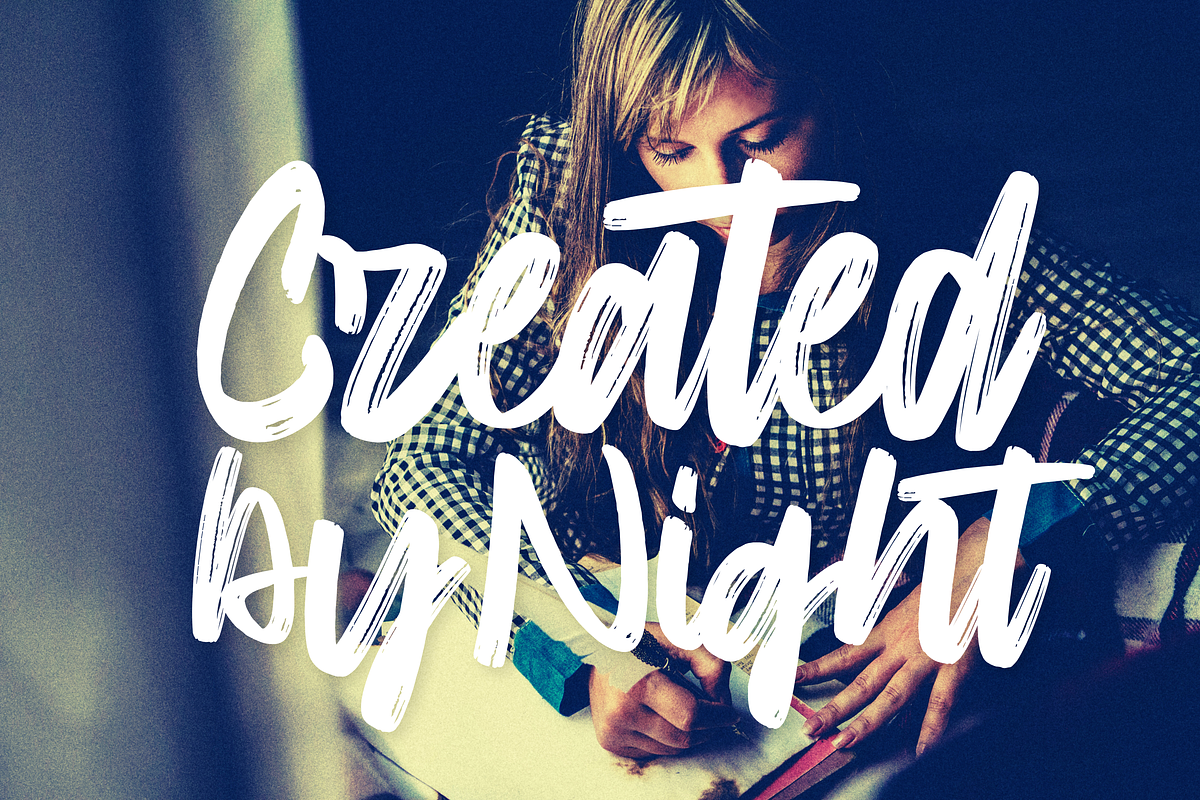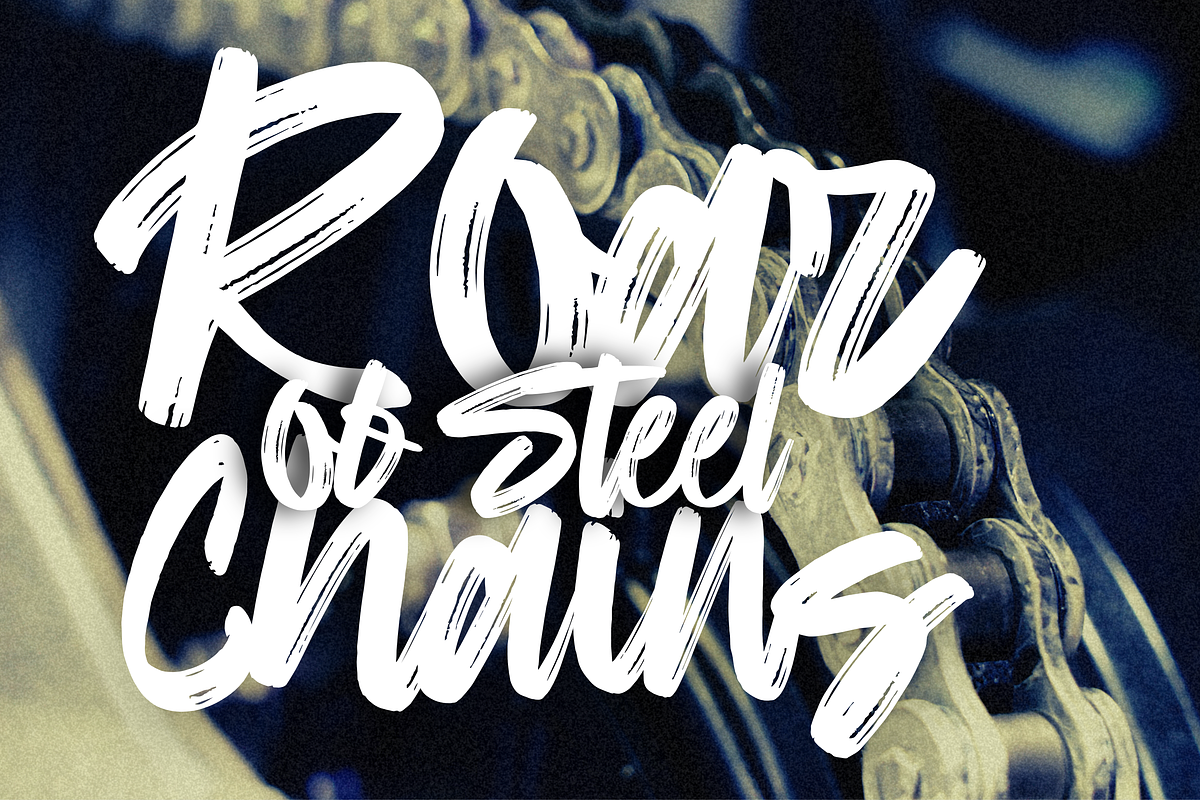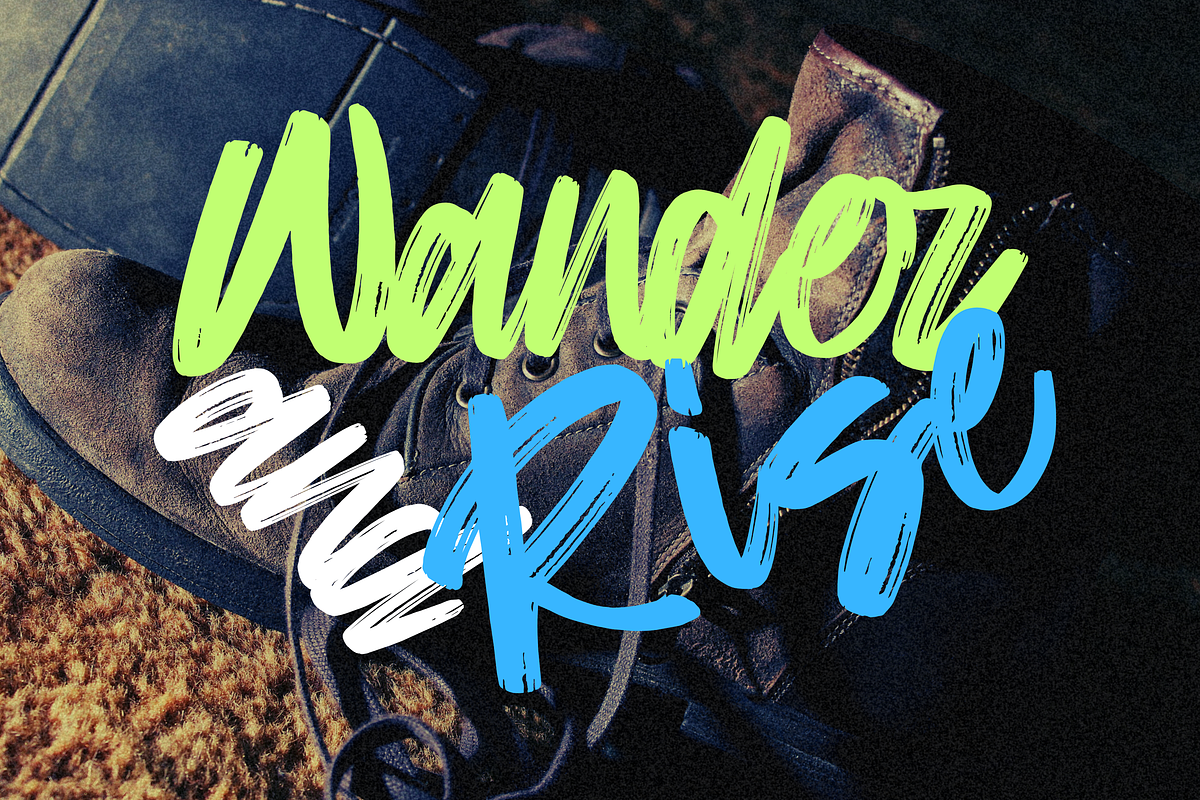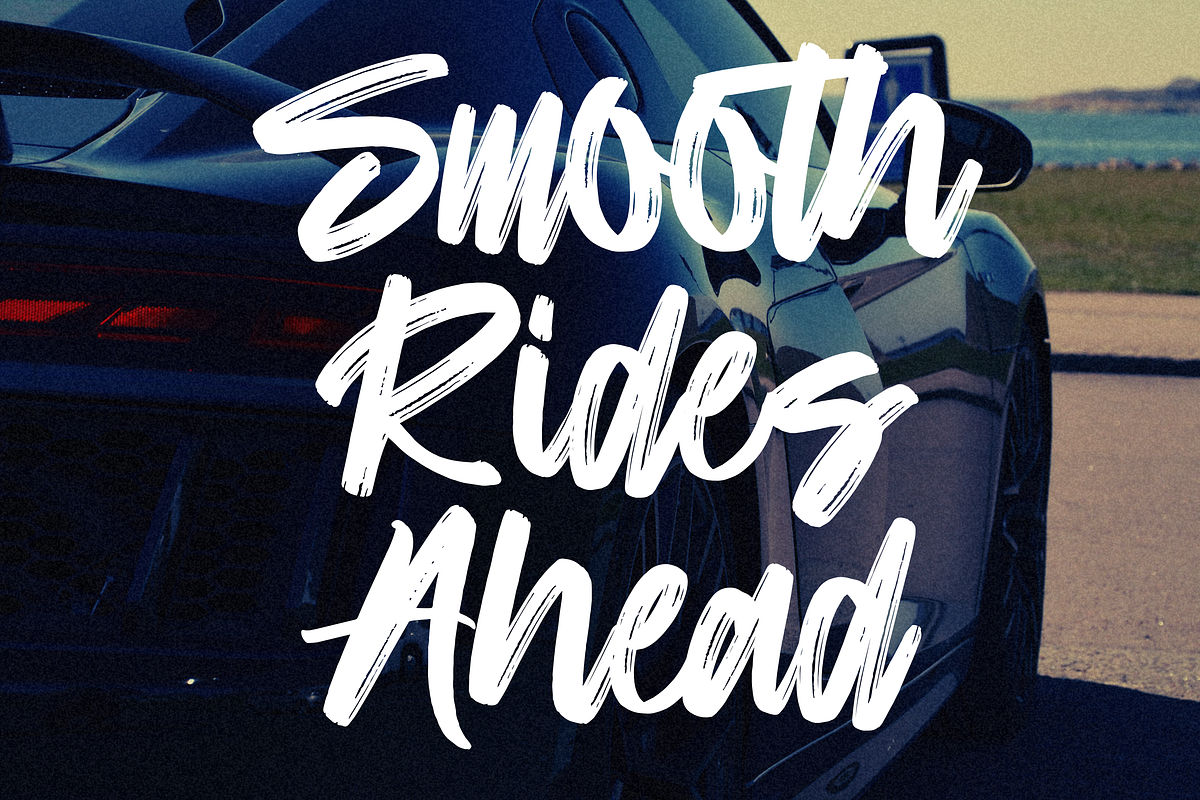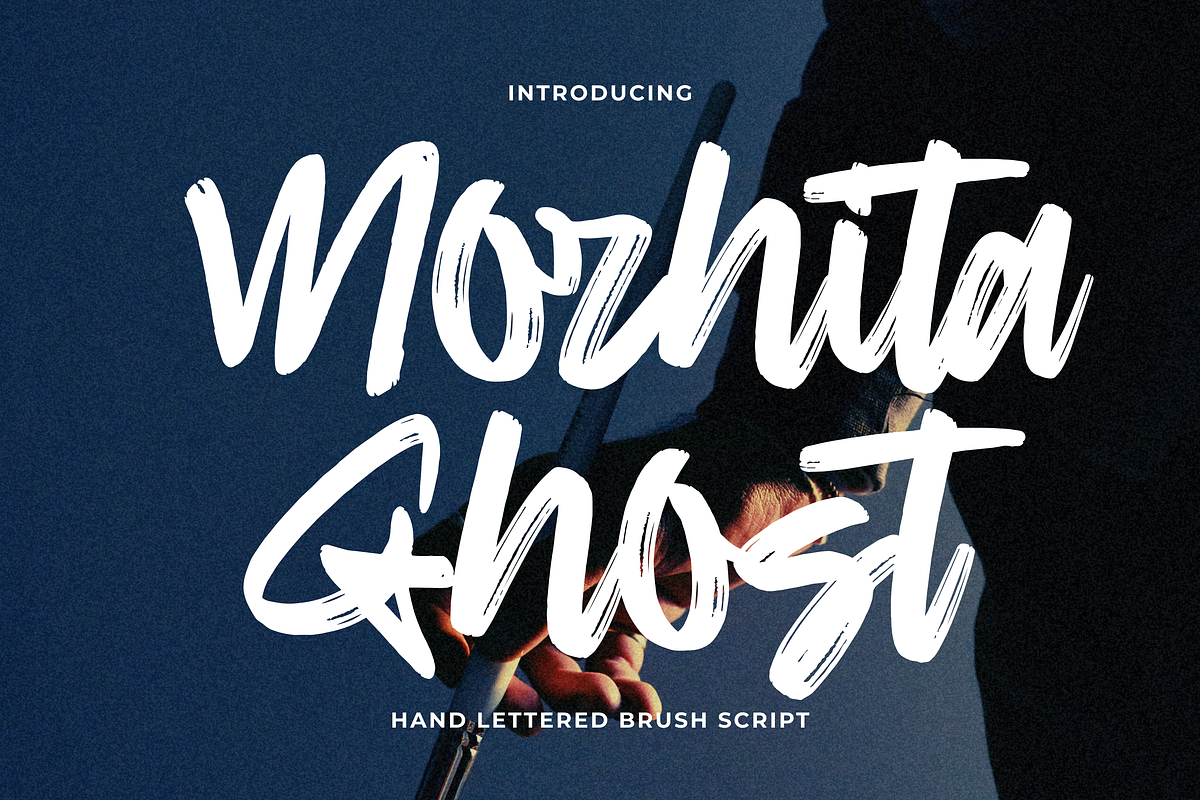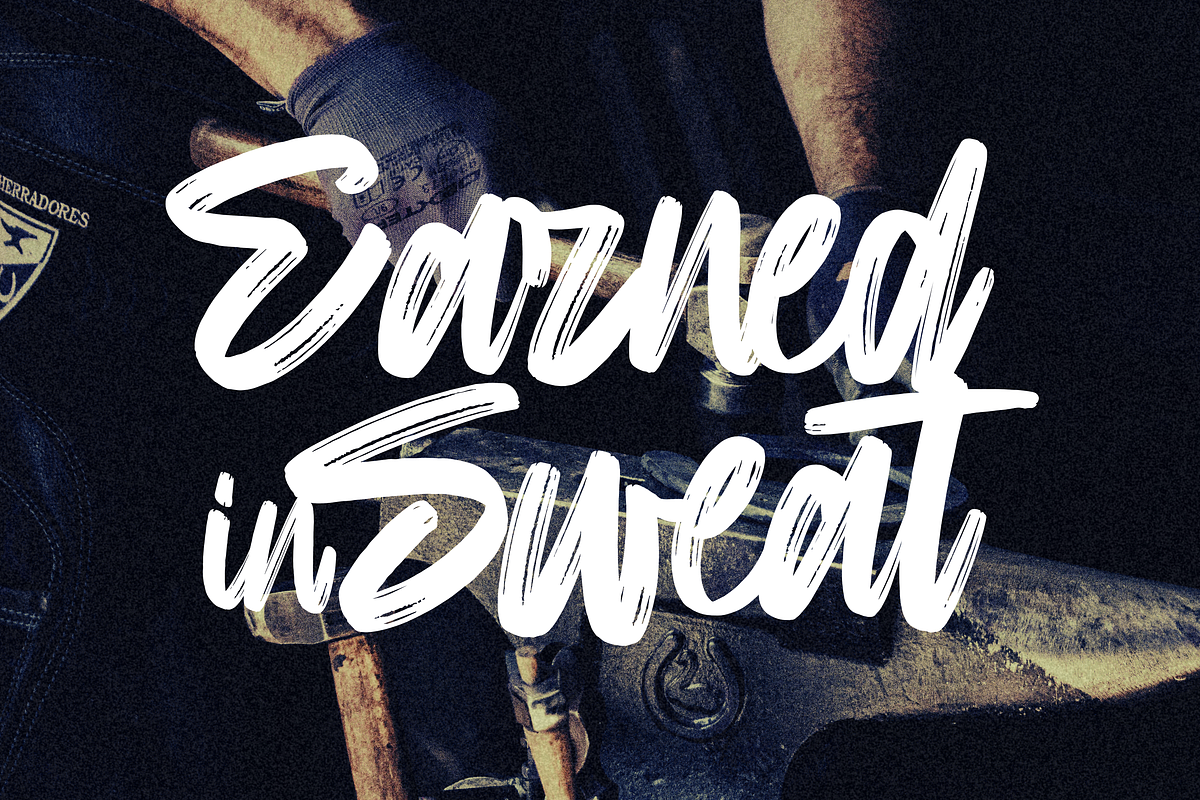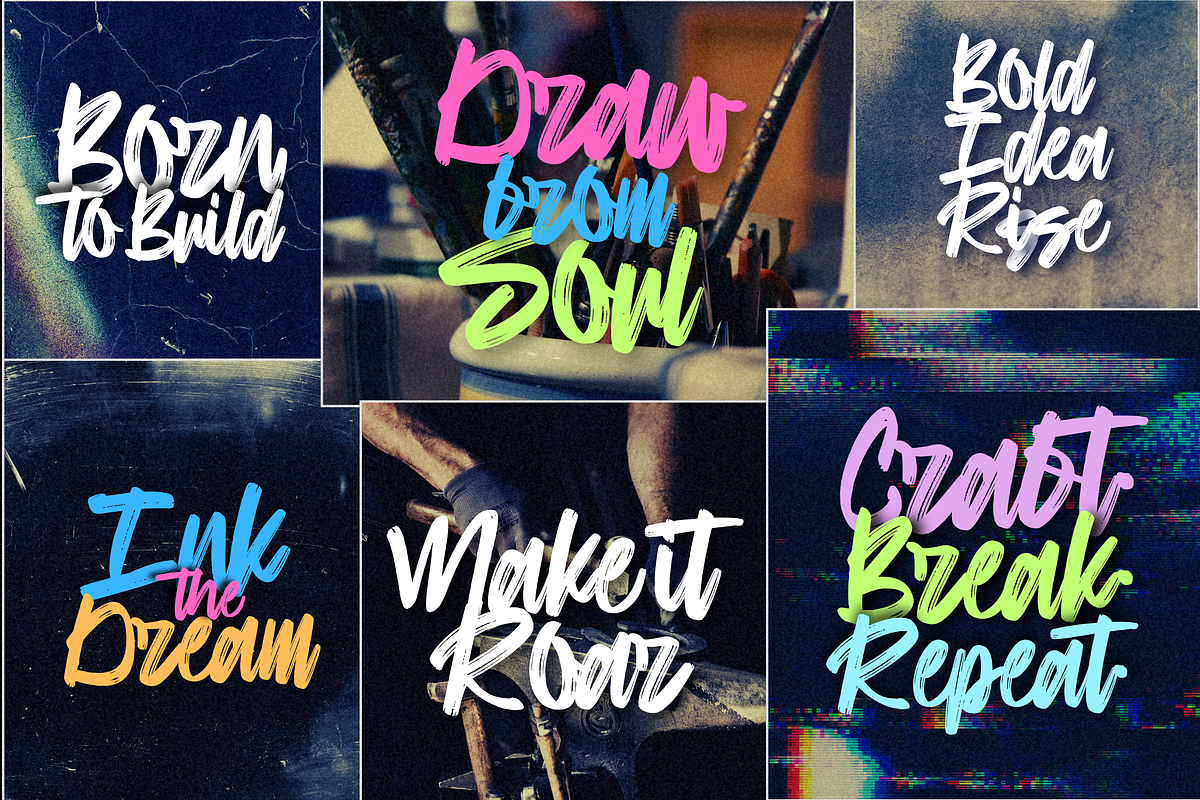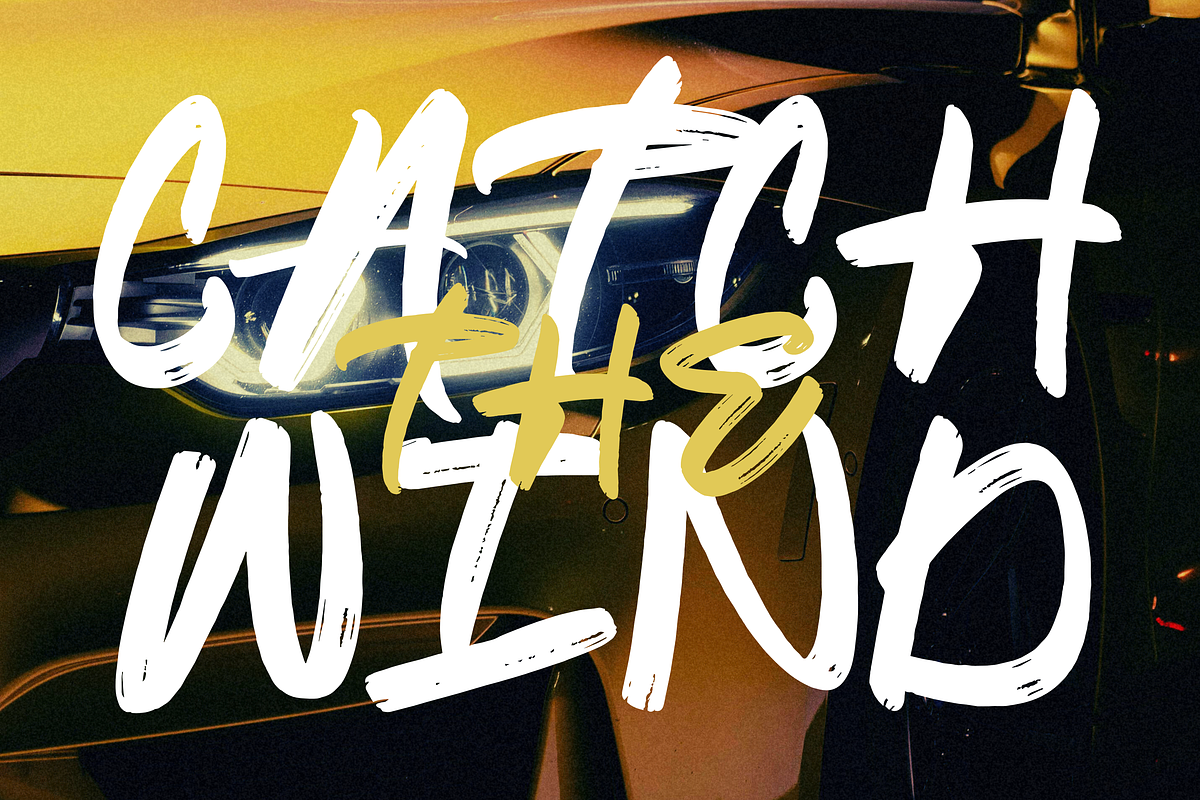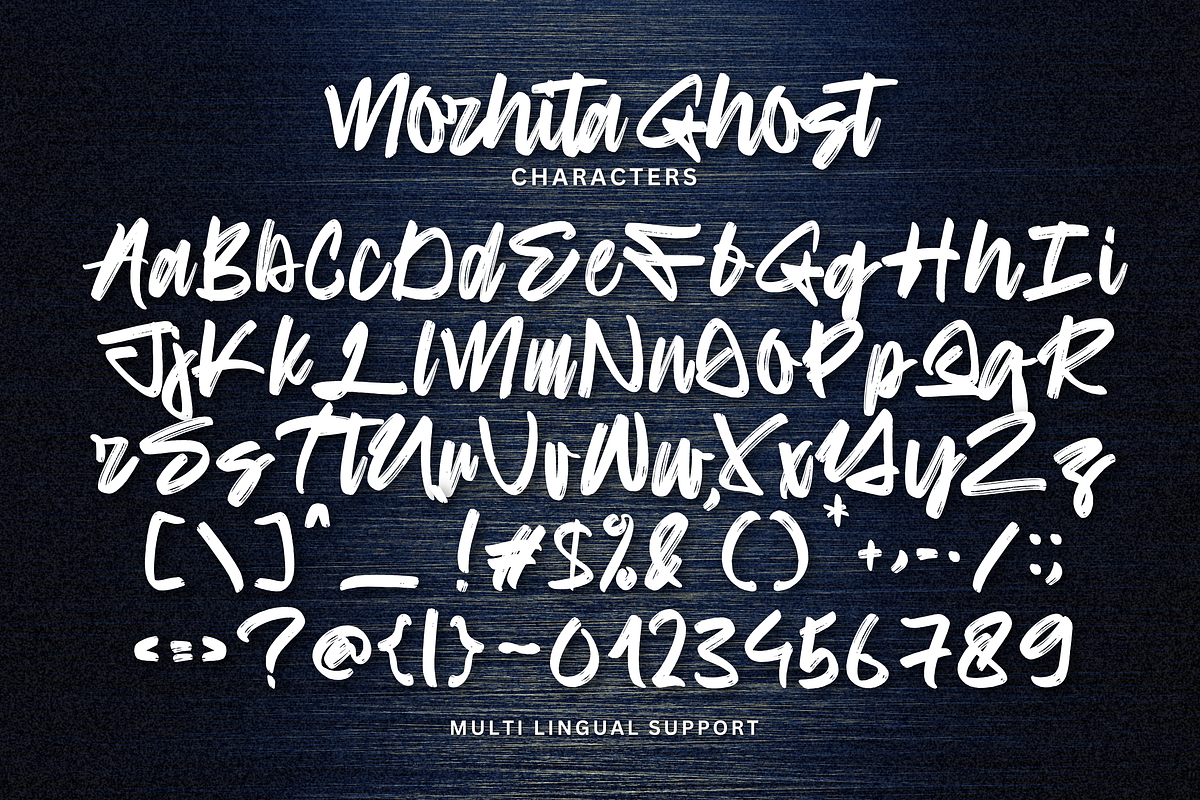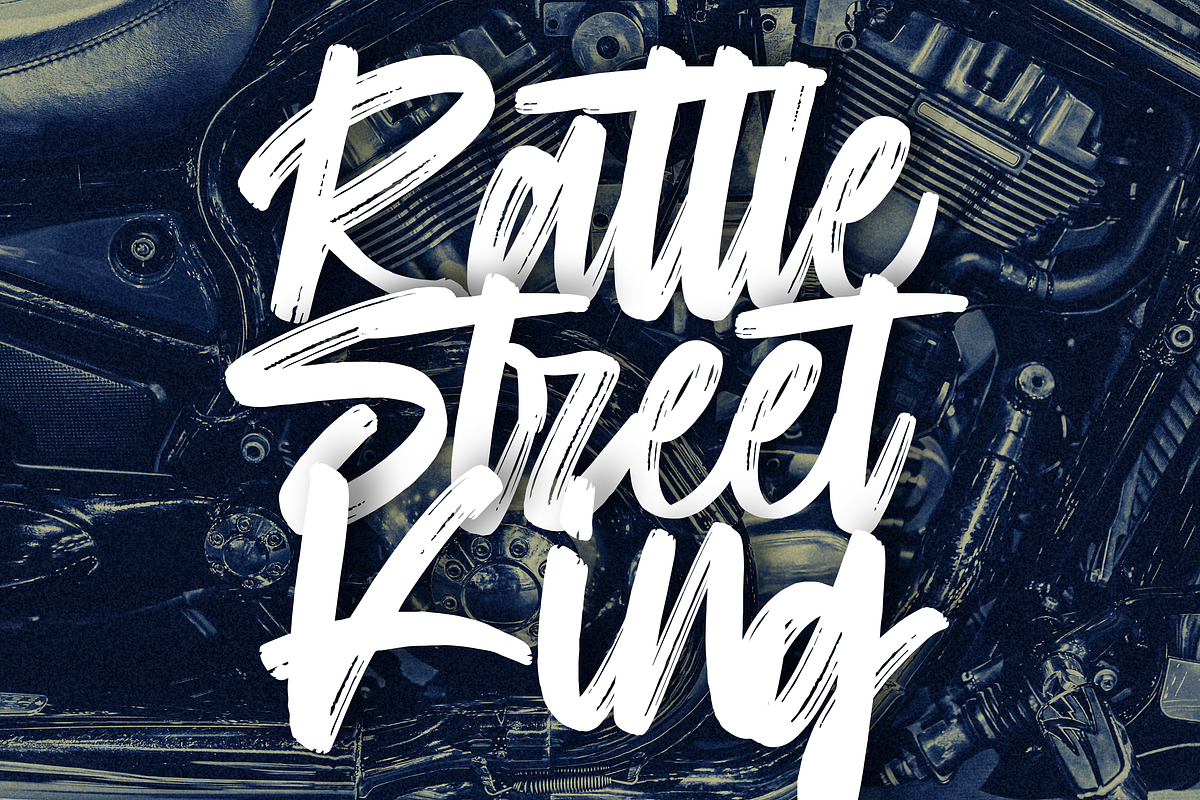
Morhita Ghost
Morhita Ghost is a bold brush script with rugged, hand-drawn charm. Crafted with real brush pen strokes, it delivers a natural texture and expressive personality. Slightly rough yet intentional, each letter carries a handcrafted touch that brings your designs to life.
Ideal for clothing designs, posters, book titles, branding, quotes, logos, packaging, invitations, and more — this font blends boldness with authenticity in every stroke.